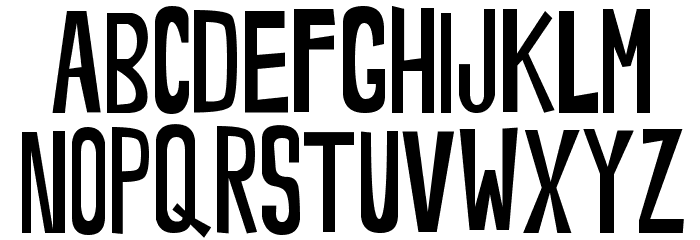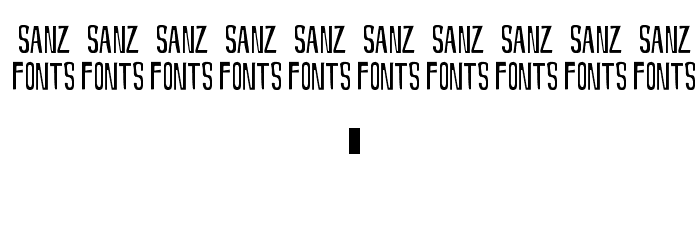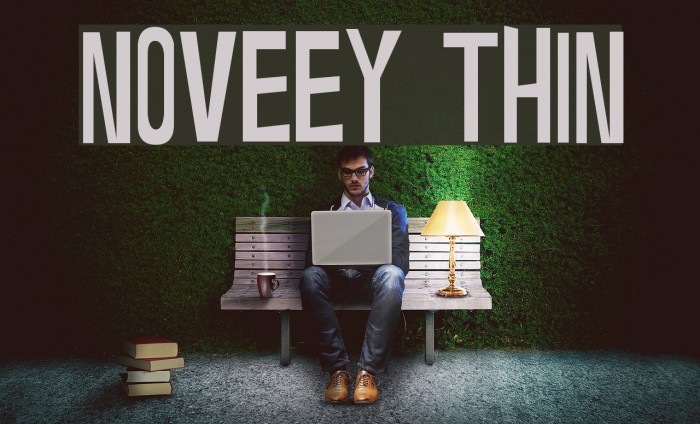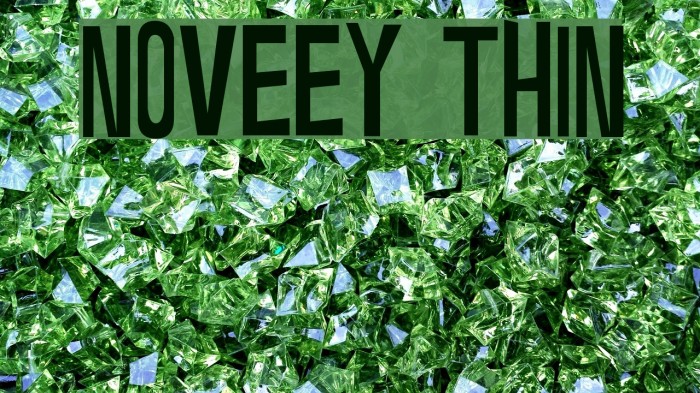
Noveey Thin Font
This font exhibits a modern and bold aesthetic with a strong emphasis on vertical lines and geometric shapes. The uppercase letters are tall and narrow, giving a sense of height and elegance. The lowercase letters maintain a consistent style, complementing the uppercase with a slightly more compact form. The numbers are clear and legible, aligning well with the overall design. The special characters are distinct and maintain the font's cohesive look. This font's clean lines and uniformity make it suitable for a variety of design applications.
A modern, bold font with tall, narrow uppercase letters and cohesive design.